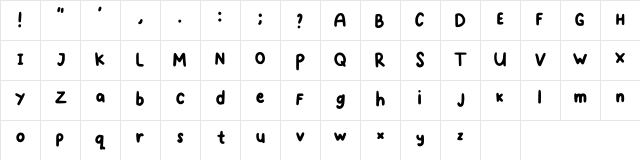
Mungil Regular Free Font
Mungil Regular
Design Context for Mungil
Mungil is a composed and adaptable typeface that performs quietly and consistently across a wide range of design contexts.